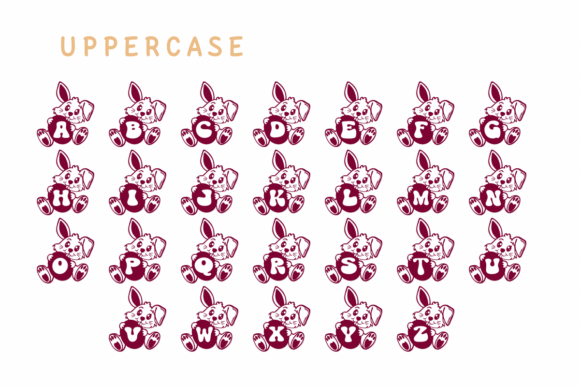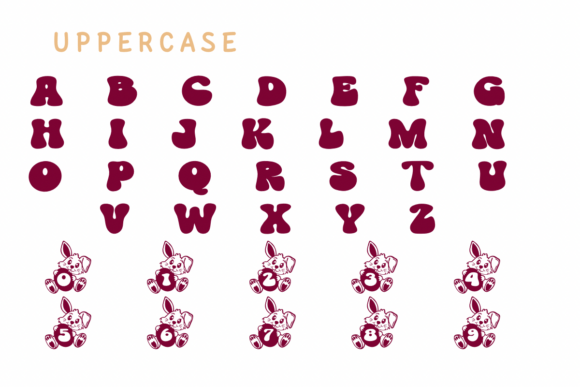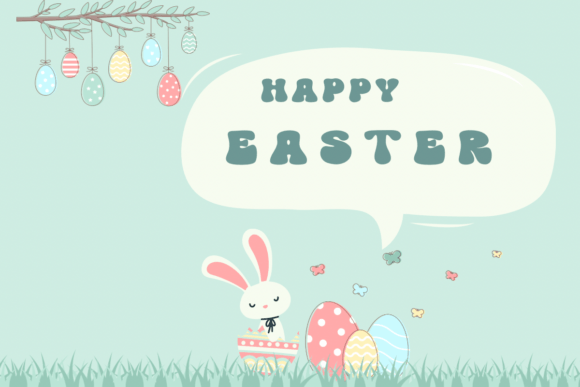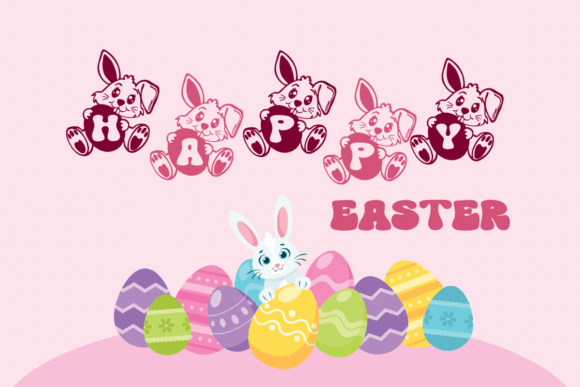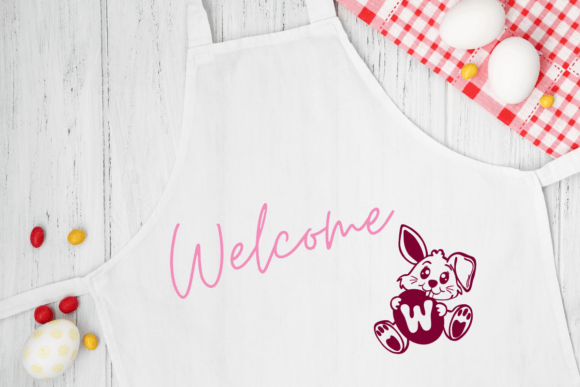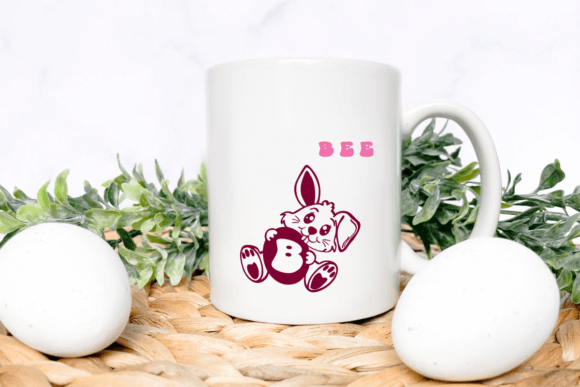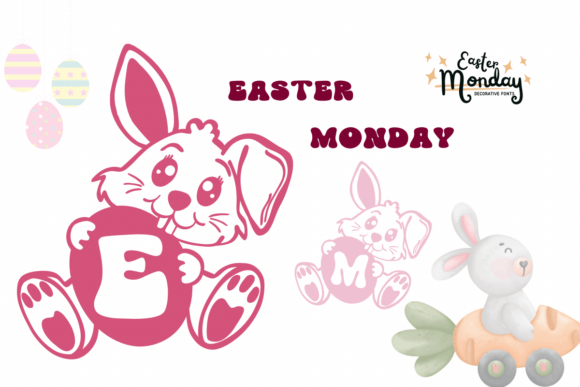
Easter Monday Font: A Delightful Decorative Font for Spring Celebrations
Are you looking for a playful and creative font to add a touch of whimsy to your Easter-themed projects? Look no further than the Easter Monday Font, a charming decorative font paired with adorable bunny illustrations that are perfect for celebrating the spring season!
What is Easter Monday Font?
Easter Monday Font is a unique and delightful font designed specifically for Easter-themed projects. This font is not just a simple typeface, but a complete design solution that includes charming bunny illustrations, making it perfect for party invitations, kids’ crafts, festive decorations, and more.
Key Features of Easter Monday Font
- Delightful Decorative Font: Easter Monday Font is a beautifully designed decorative font that adds a touch of playfulness and whimsy to any design project.
- Charming Bunny Illustrations: The font comes with adorable bunny illustrations that are perfect for Easter-themed projects.
- Perfect for Spring Celebrations: The font is designed specifically for Easter celebrations, making it ideal for party invitations, decorations, and other festive projects.
- Playful and Creative Design: Easter Monday Font is perfect for designers and crafters who want to add a touch of playfulness and creativity to their projects.
Uses of Easter Monday Font
Easter Monday Font is a versatile design solution that can be used for a variety of projects, including:
- Easter-themed Party Invitations: Create adorable and festive party invitations that will delight your guests.
- Kids’ Crafts: Use the font to create fun and engaging crafts for kids, such as Easter-themed coloring pages and activity sheets.
- Festive Decorations: Add a touch of whimsy to your Easter decorations with Easter Monday Font.
- Social Media Graphics: Use the font to create engaging and festive social media graphics for Easter.
Benefits of Using Easter Monday Font
Using Easter Monday Font offers several benefits, including:
- Unique and Eye-catching Designs: The font allows you to create unique and eye-catching designs that will stand out from the crowd.
- Time-saving: The font comes with pre-designed illustrations, saving you time and effort in creating your designs.
- Easy to Use: Easter Monday Font is easy to use, even for those who are not experienced designers.
Tips for Using Easter Monday Font
Here are some tips for using Easter Monday Font:
- Experiment with Different Colors: Try out different color combinations to add a personal touch to your designs.
- Mix and Match Illustrations: Mix and match the bunny illustrations to create unique and interesting designs.
- Use for Other Spring-themed Projects: While the font is designed for Easter, it can also be used for other spring-themed projects, such as Mother’s Day and spring break celebrations.
Easter Monday Font is a delightful decorative font paired with charming bunny illustrations that are perfect for celebrating the spring season. With its playful and creative design, this font is ideal for Easter-themed projects, party invitations, kids’ crafts, and festive decorations. Bring joy and whimsy to your designs with this unique font!